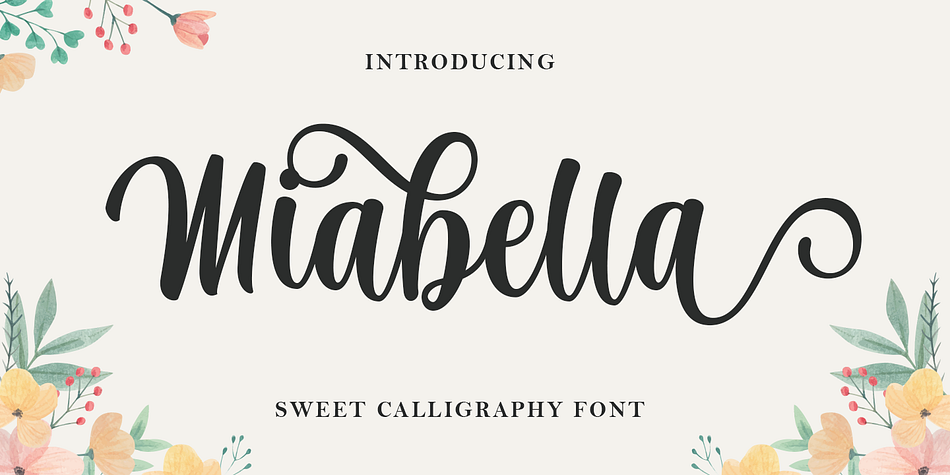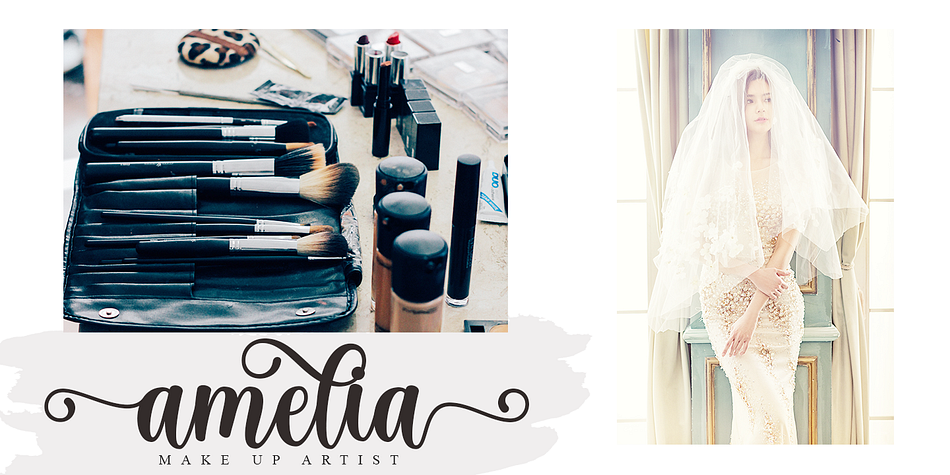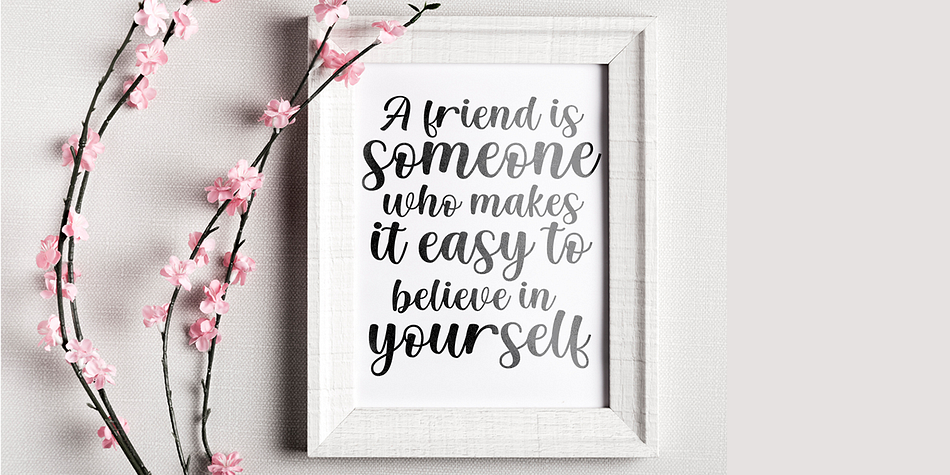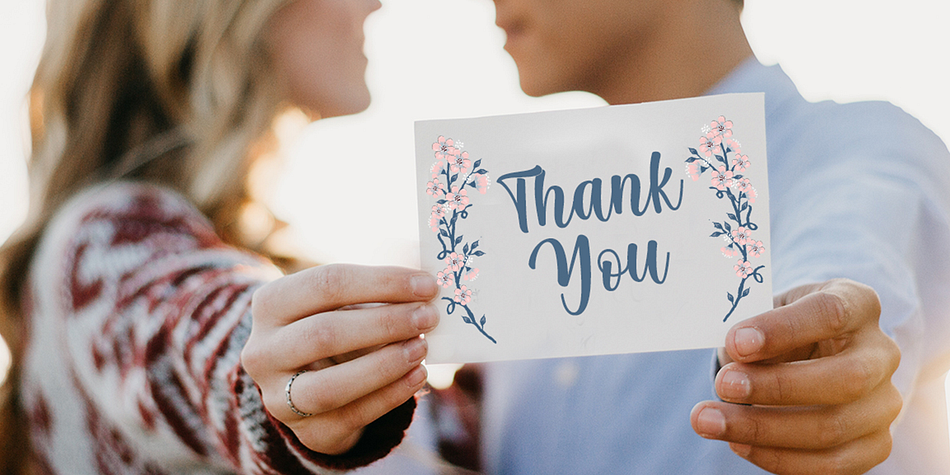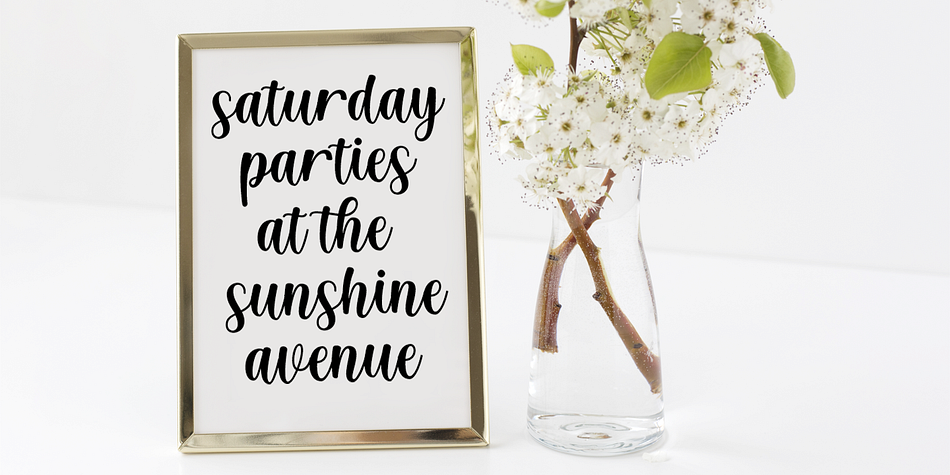
Miabella
Miabella is a brush script font family published by Gatype.
Miabella is a one-of-a-kind script with classic touch and very readable at glance. Really perfect for you who needs a typeface for especially logotype, apparel, invitation, branding, packaging, advertising etc. Just play around and you will enjoy it. This typeface is comes in uppercase, lowercase, punctuations, symbols & numerals, stylistic set alternate, ligatures, etc also support multilingual and already PUA encoded.